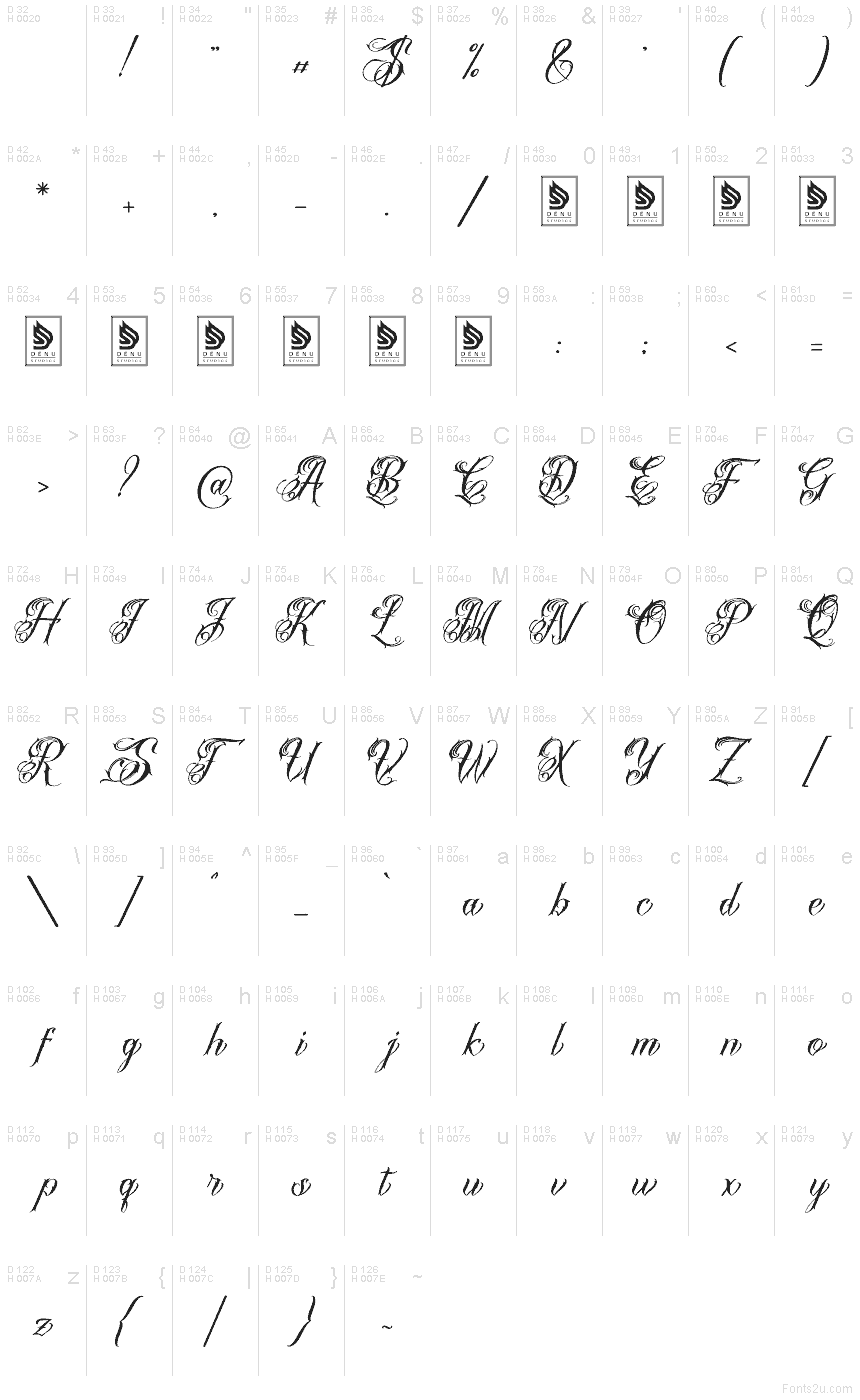
Bionley font by Denustudios is a free brush script typeface with a bold tattoo soul. Long inky strokes curl into sharp flourishes, while the letters weave together like hand-drawn body art-elegant but a little dangerous. It has that textured, pen-on-skin feel that instantly gives words a custom, lettered-by-hand attitude, even in digital layouts.
Using Bionley, your designs pick up the drama of classic tattoo flash, so it shines on logos, band merch, posters, apparel graphics, packaging, and event titles. This free font also works beautifully for quotes, book covers, and bold name cards where you want a strong personal mark. Pair Bionley with a clean sans serif in small text to keep the ornate curves readable and let the script stay center stage.